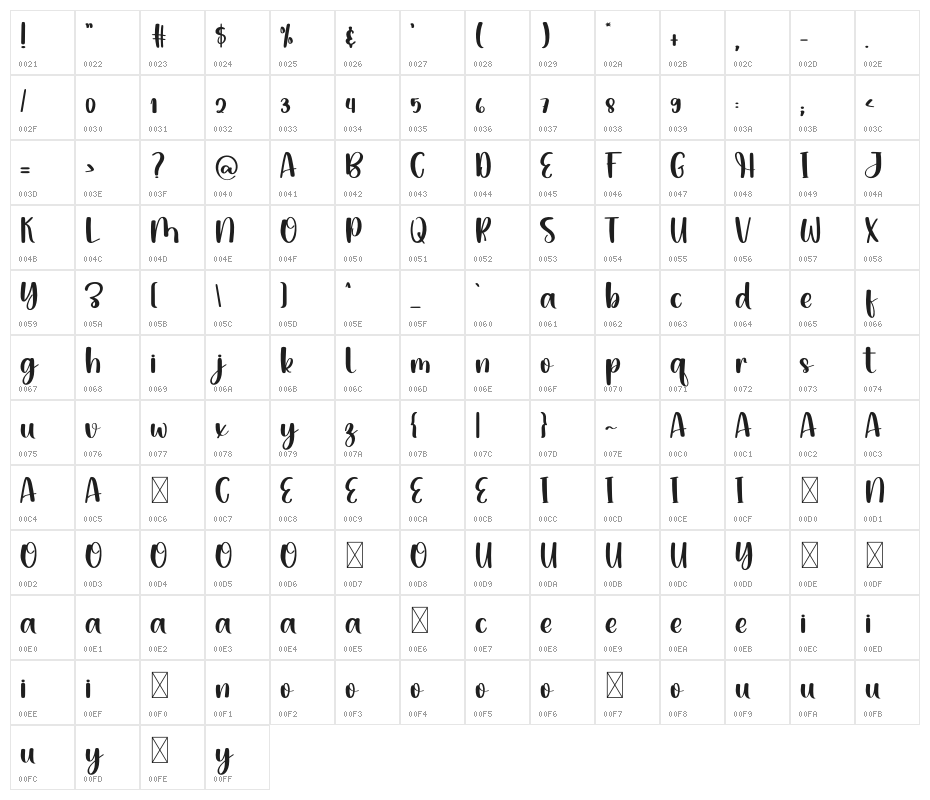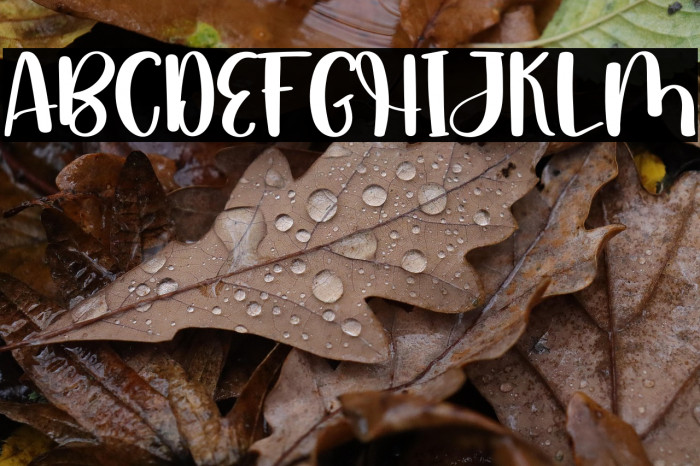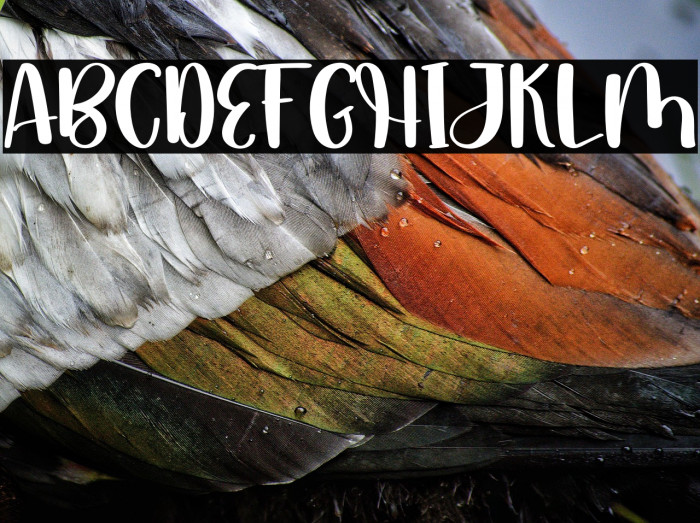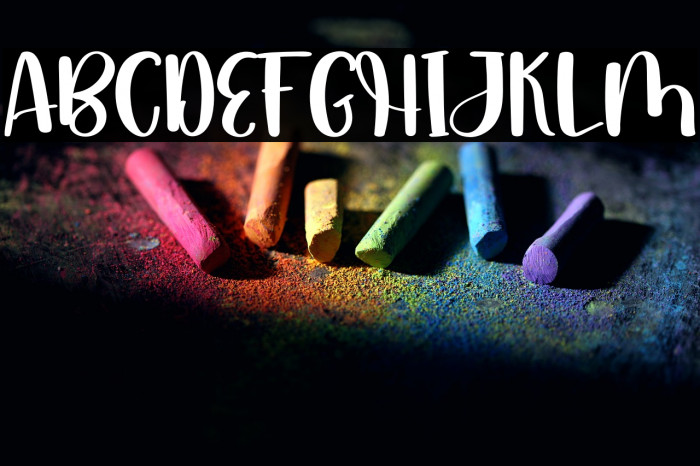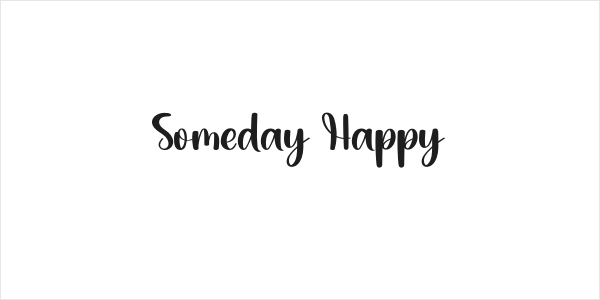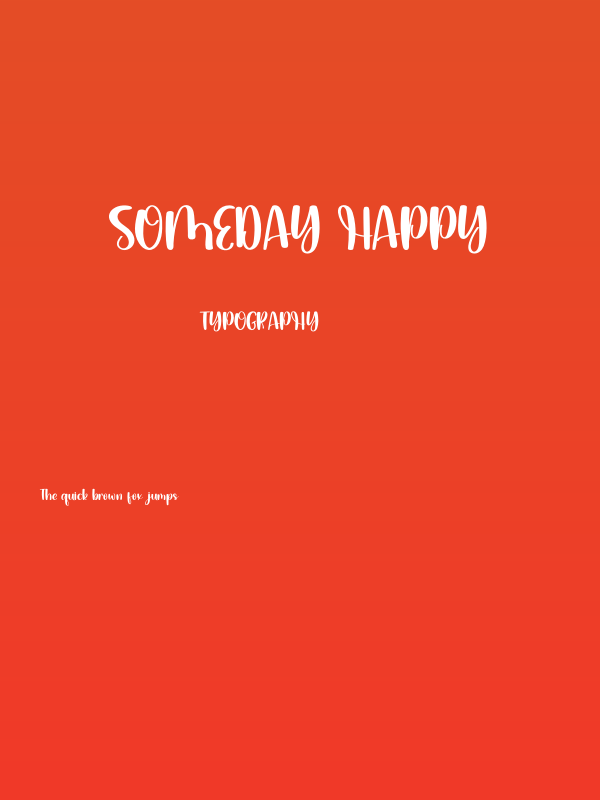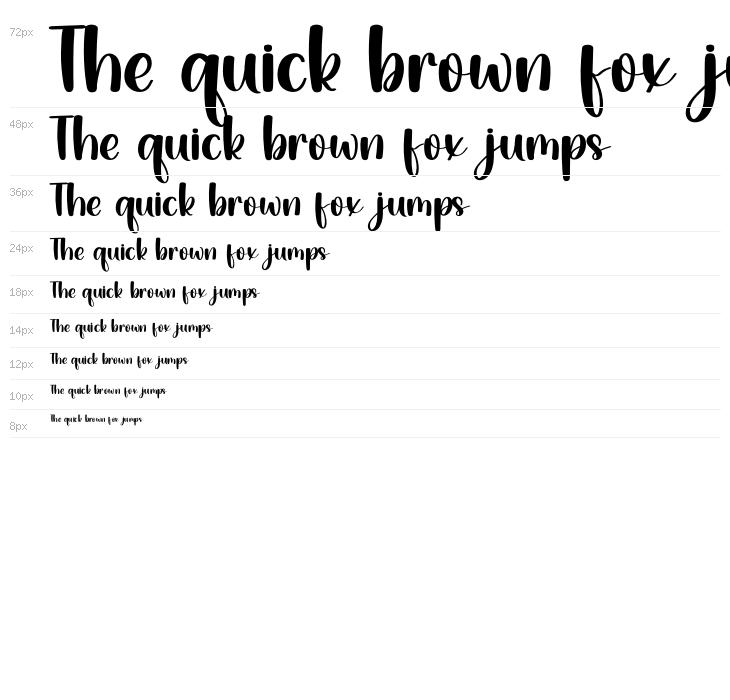
Someday Happy Font
Someday Happy Description
A playful and bold script font with a handwritten style, featuring thick strokes and a lively appearance.
| Use Case | Logos, Headlines |
| Proposed Projects | Greeting cards, invitations, playful branding. |